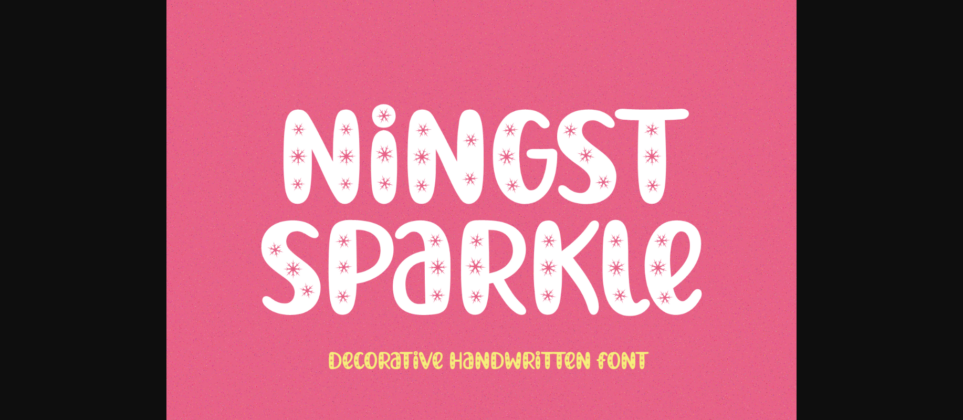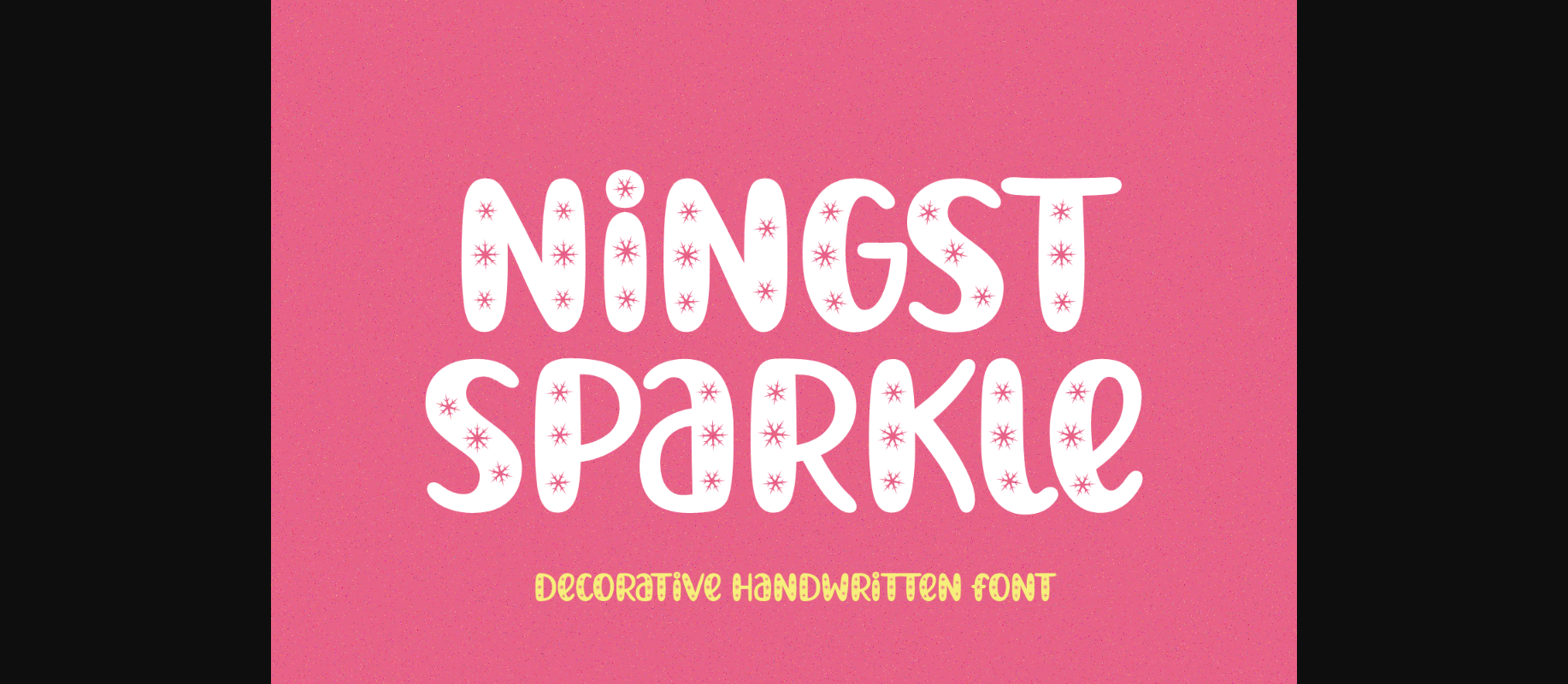
About Ningst Sparkle Font
Ningst Sparkle is a cool and decorative font. Whether you are using it for cartoon-related designs, children games, quotes, titles, brand names, book covers, posters, or just any creation that requires a touch of joy, this font is a great choice.